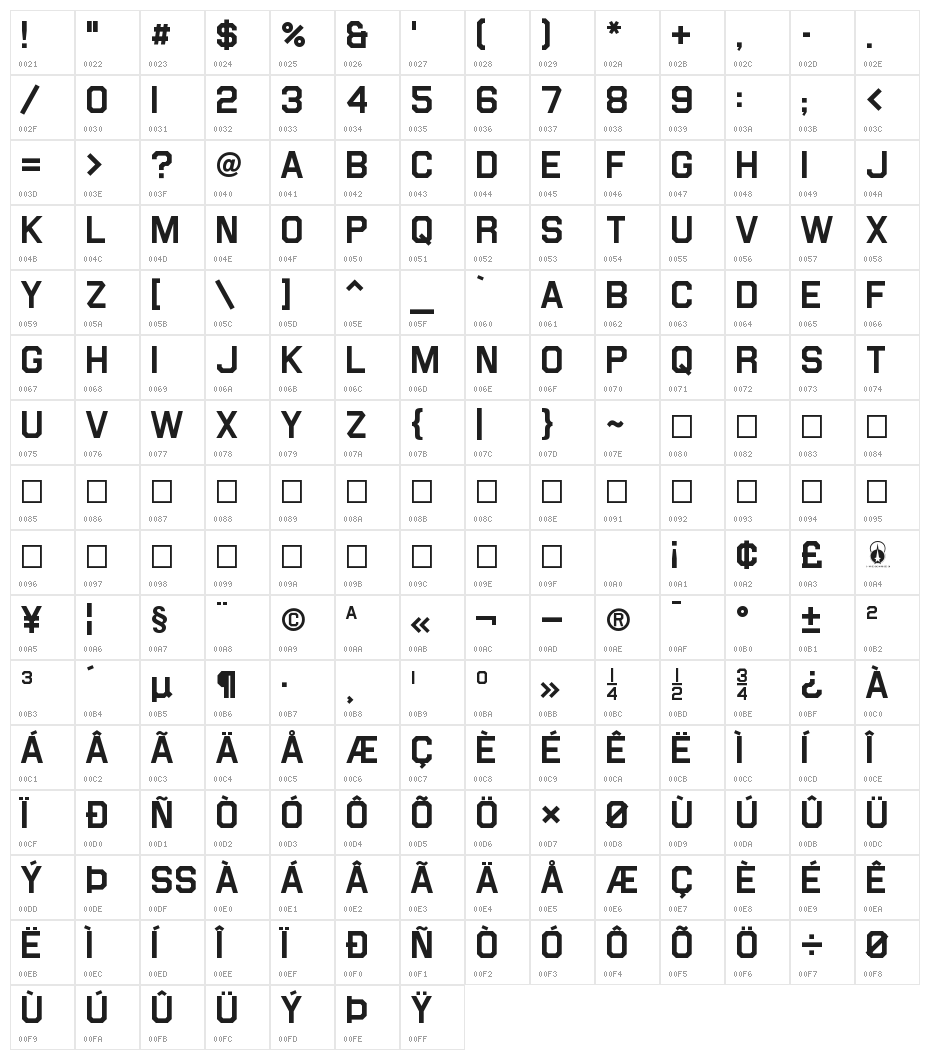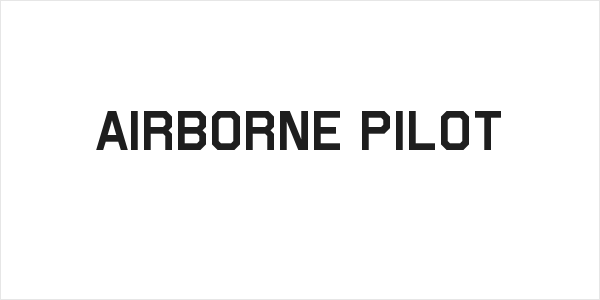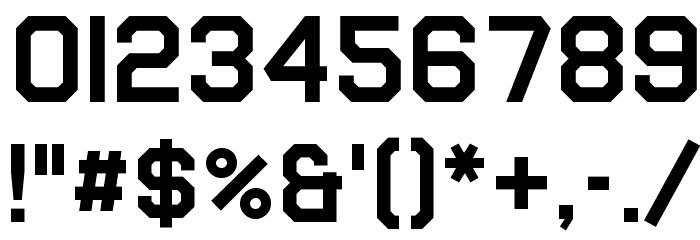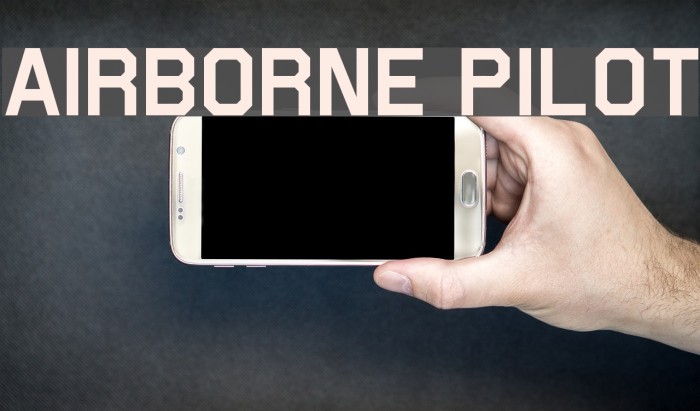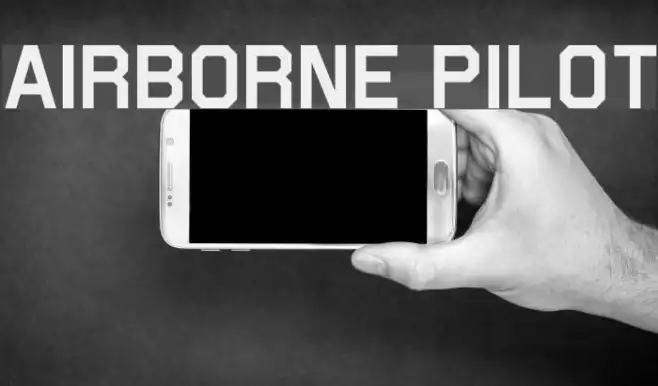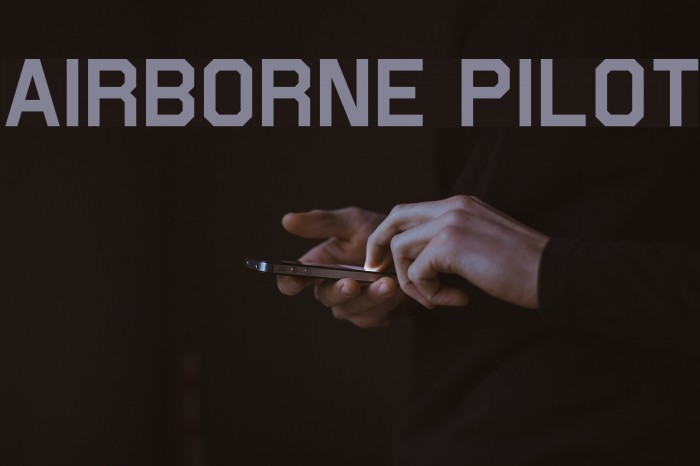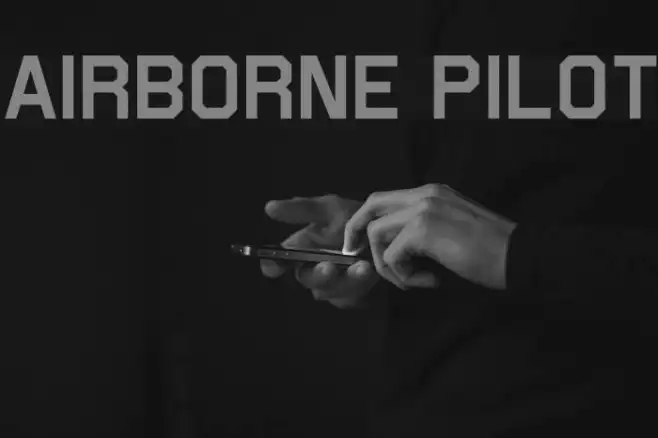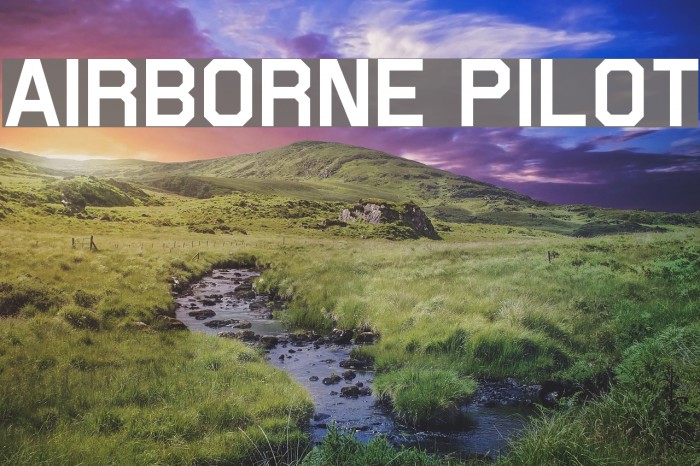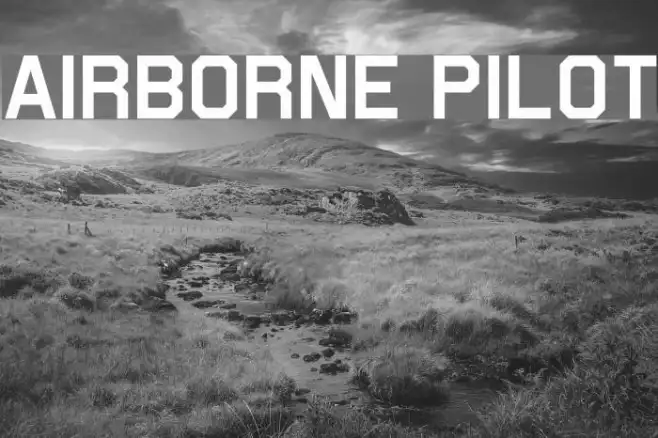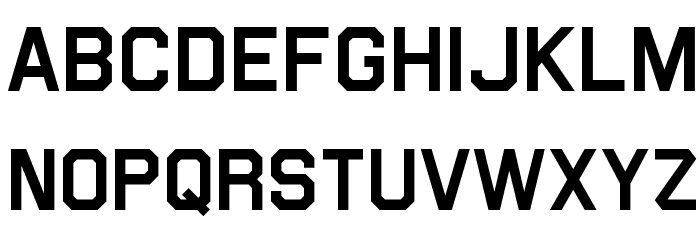
Airborne Pilot Font
Airborne Pilot Description
This font features a bold, geometric design with a strong, angular appearance. The characters are constructed with sharp edges and consistent stroke widths, giving it a modern and industrial feel. The uppercase letters are particularly striking, with a uniform height and width that create a cohesive look. The numerals and special characters maintain the same boldness and geometric style, ensuring consistency across all elements. This font is highly legible and commands attention, making it suitable for impactful designs.
| Use Case | Headlines, Logos, Signage |
| Proposed Projects | Ideal for branding, signage, posters, and any project requiring a strong, modern aesthetic. |